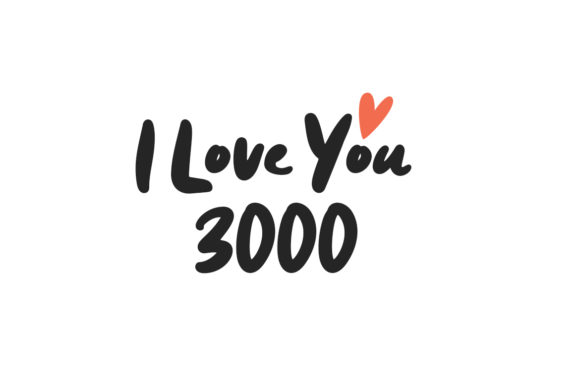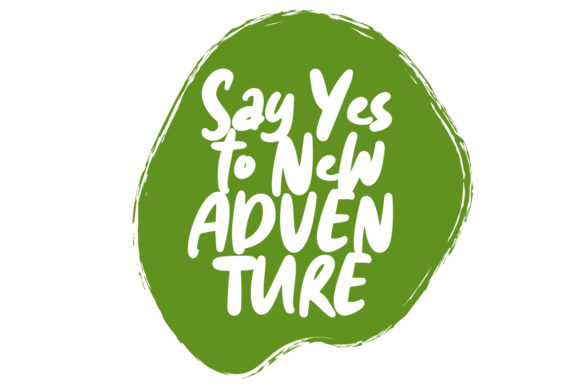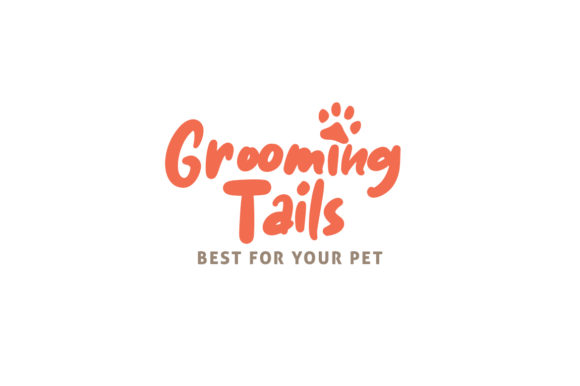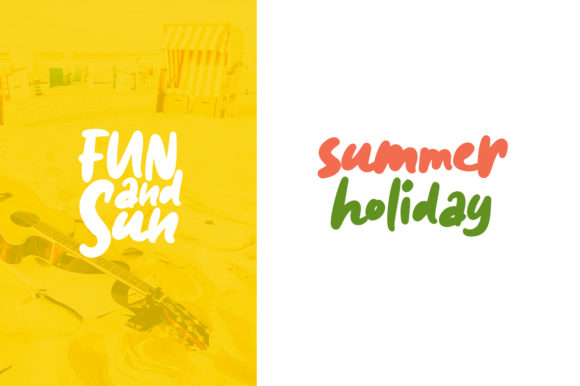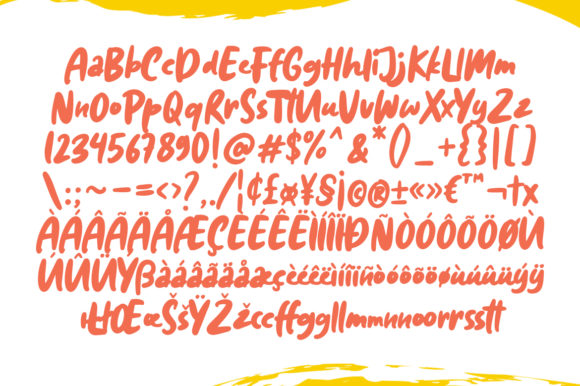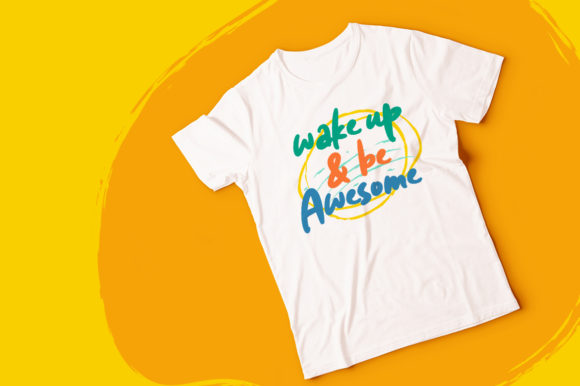
Introducing Diggies Font: The Playful and Charming Display Font
Are you tired of using the same old fonts for your design projects? Look no further than Diggies Font, a charming display font that resembles an organic doodle style of writing. With its playful look and feel, Diggies is sure to capture your heart and add a touch of whimsy to your designs.
What is Diggies Font?
Diggies Font is a unique and eye-catching display font that is perfect for designers and crafters looking to add a personal touch to their work. Its organic doodle style of writing gives it a hand-drawn feel that is both charming and engaging. The font is designed to be versatile, making it suitable for a wide range of design projects, from branding and advertising to packaging and signage.
Key Features of Diggies Font
- Playful and Whimsical: Diggies Font has a playful and whimsical feel that is sure to add a touch of personality to your designs.
- Organic Doodle Style: The font’s organic doodle style of writing gives it a hand-drawn feel that is both charming and engaging.
- Versatile: Diggies Font is versatile and can be used for a wide range of design projects, from branding and advertising to packaging and signage.
- Easy to Read: Despite its playful feel, Diggies Font is easy to read, making it perfect for use in body text as well as headlines.
Uses for Diggies Font
Diggies Font is perfect for designers and crafters looking to add a personal touch to their work. Here are just a few ideas for using Diggies Font:
- Branding and Advertising: Use Diggies Font to create eye-catching logos, advertisements, and marketing materials that stand out from the crowd.
- Packaging: Add a touch of whimsy to your product packaging with Diggies Font, making it perfect for food, beverage, and lifestyle brands.
- Signage: Use Diggies Font to create eye-catching signage for events, businesses, and organizations.
- Stationery and Invitations: Add a personal touch to your stationery and invitations with Diggies Font, making it perfect for weddings, parties, and other special occasions.
Tips for Using Diggies Font
Here are a few tips for getting the most out of Diggies Font:
- Use it Sparingly: Diggies Font is a display font, so use it sparingly to add emphasis and personality to your designs.
- Pair it with Other Fonts: Pair Diggies Font with other fonts to create a unique and visually appealing combination.
- Experiment with Colors: Diggies Font looks great in a variety of colors, so don’t be afraid to experiment and find the perfect hue for your design.
Diggies Font is a charming display font that is sure to capture your heart with its playful look and feel. With its organic doodle style of writing, versatility, and ease of use, Diggies Font is perfect for designers and crafters looking to add a personal touch to their work. Whether you’re creating branding and advertising materials, packaging, signage, or stationery and invitations, Diggies Font is the perfect choice.